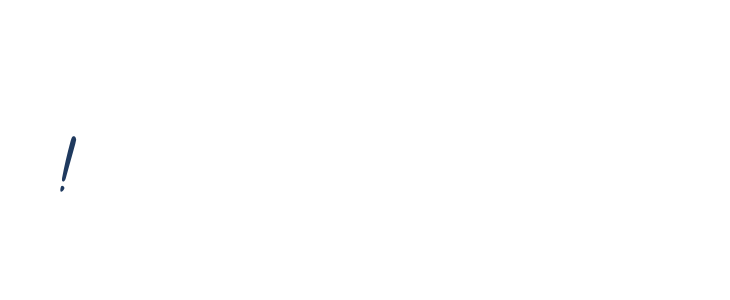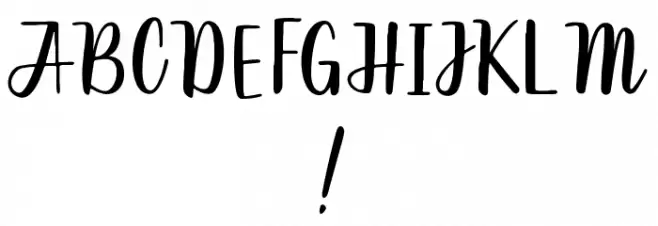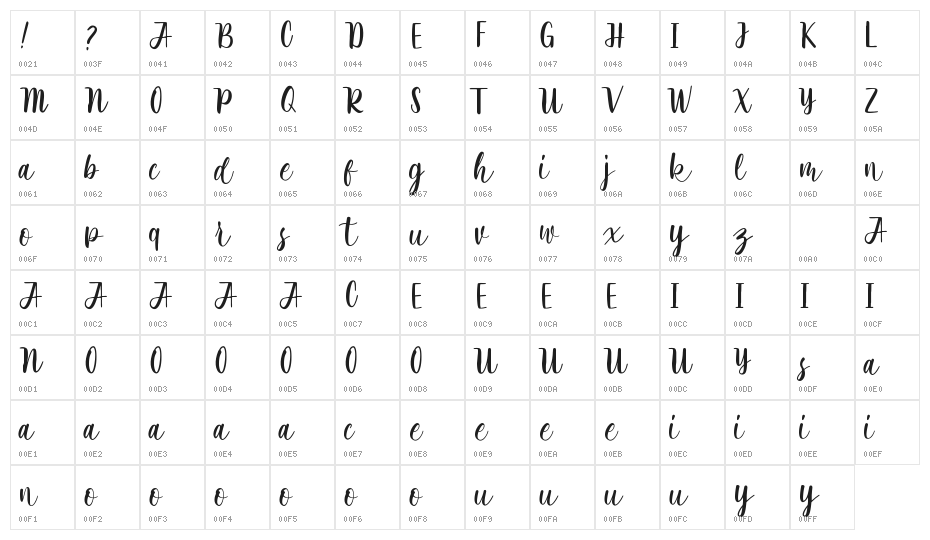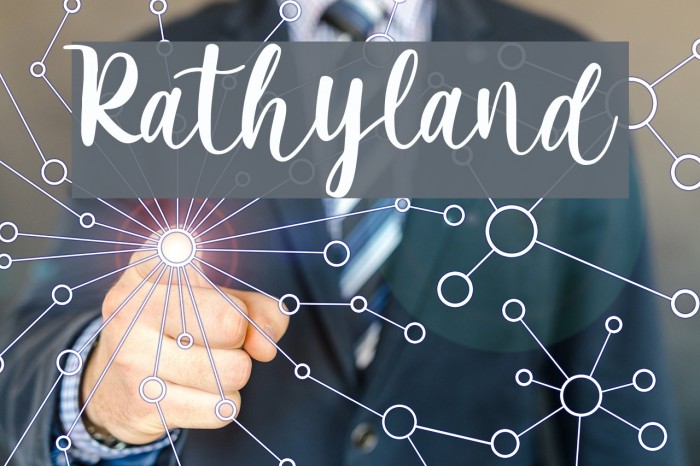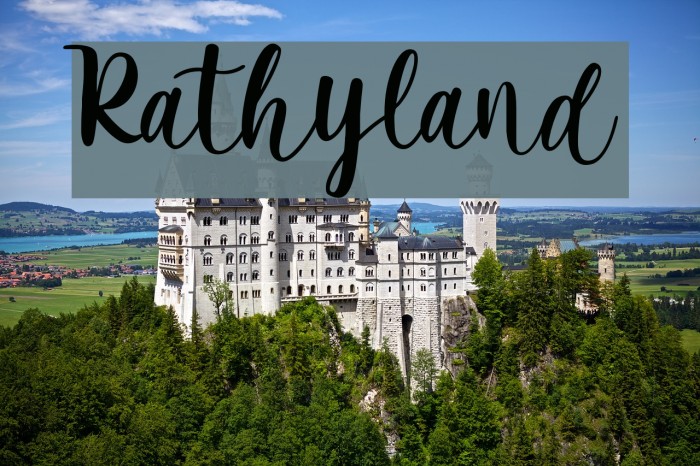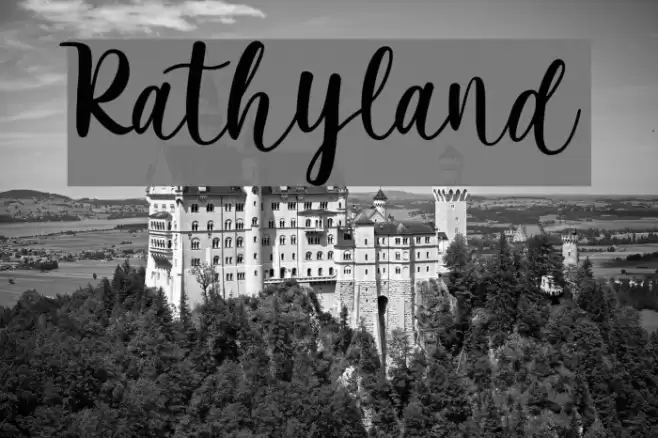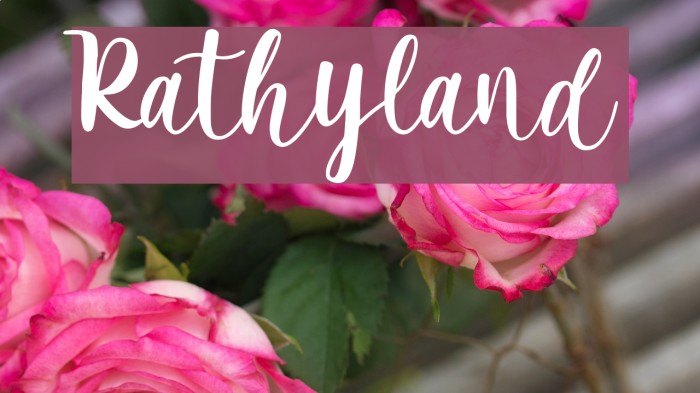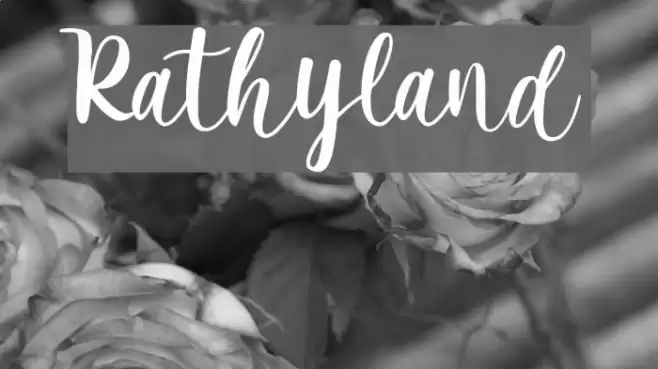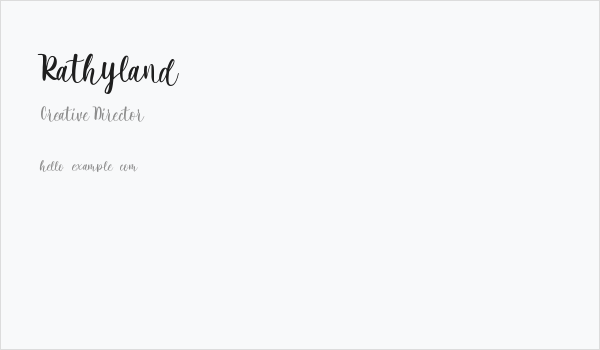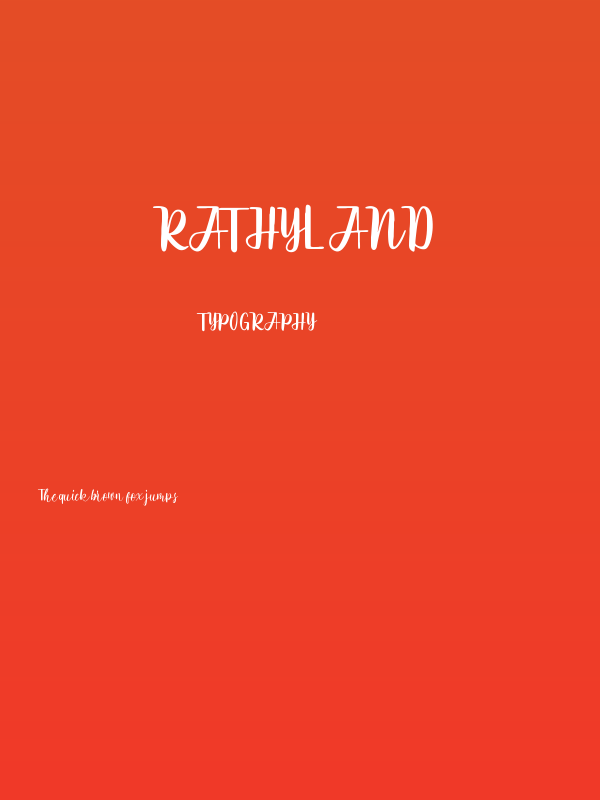
Rathyland Font
Rathyland Description
This font features a lively and expressive script style with a handwritten appearance. The letters are characterized by their fluid, cursive strokes and varying thickness, giving them a dynamic and artistic feel. The uppercase letters are bold and slightly elongated, while the lowercase letters maintain a consistent flow with elegant loops and curves. The numbers and special characters are designed to match the playful and creative aesthetic of the alphabet. This font exudes a sense of personality and charm, making it suitable for projects that require a touch of elegance and individuality.
| Use Case | Logos, Invitations, Creative projects |
| Proposed Projects | Ideal for wedding invitations, greeting cards, branding, and creative projects that require a personal touch. |